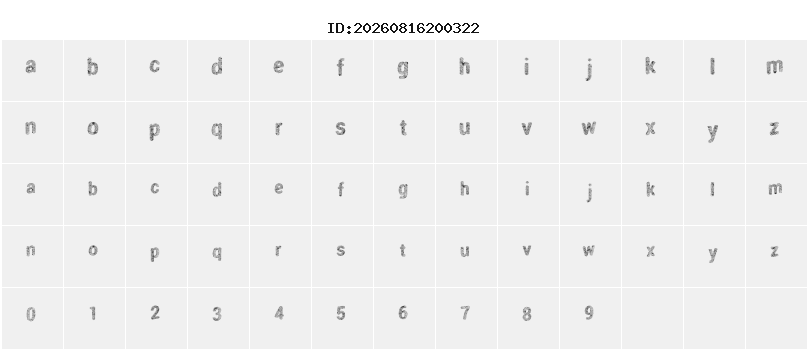
• Font Name: SpecialThird
• Designer: Xerographer Fonts Max Infeld
• Manufacturer: Xerographer Fonts
• Description: Made at Xerographer Studios Chico,CA a custom template by max infeld
About SpecialThird.ttf
SpecialThird.ttf is a modern, elegant sans-serif font designed for ultimate readability and visual harmony. Perfect for branding, headlines, web design, and print materials.